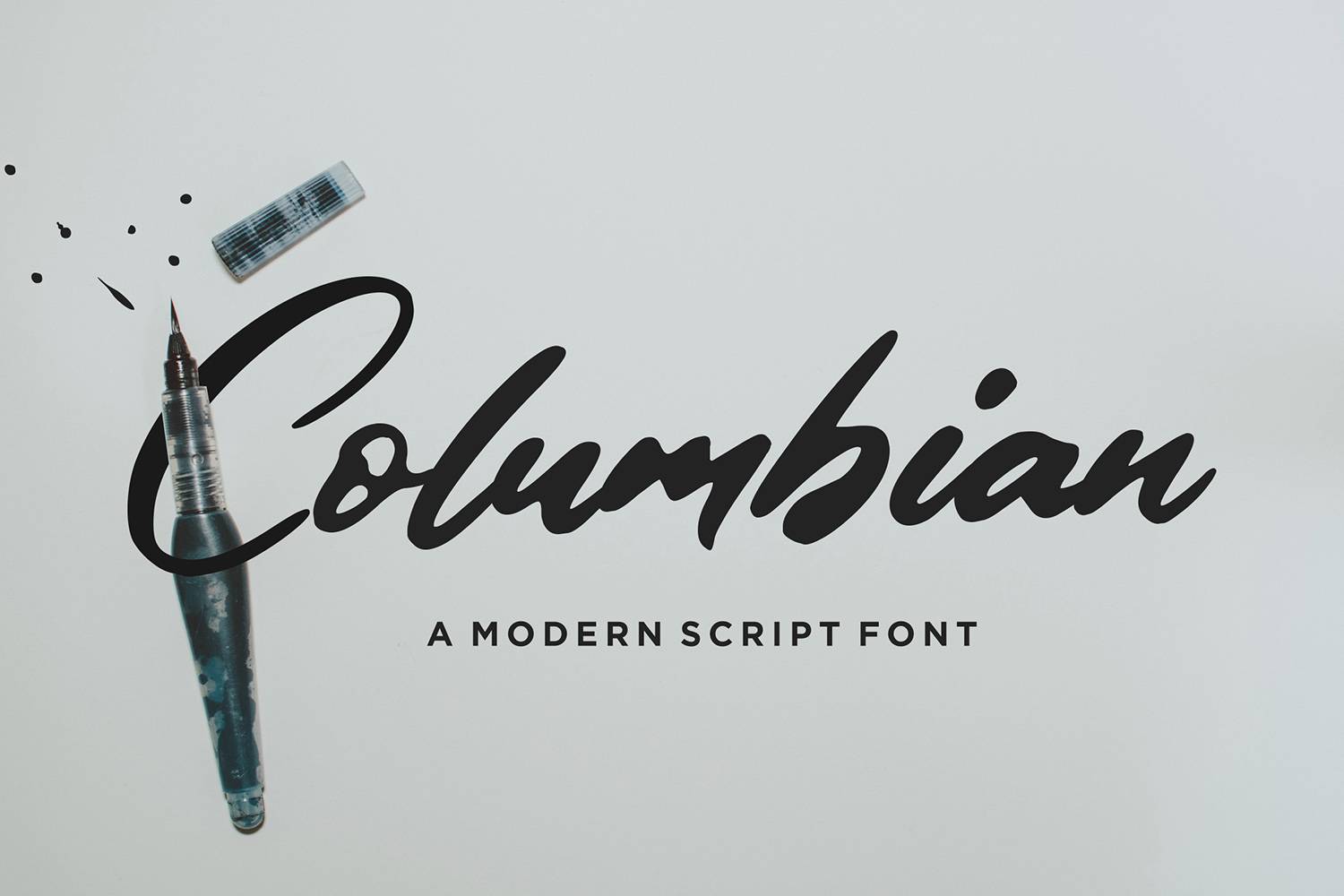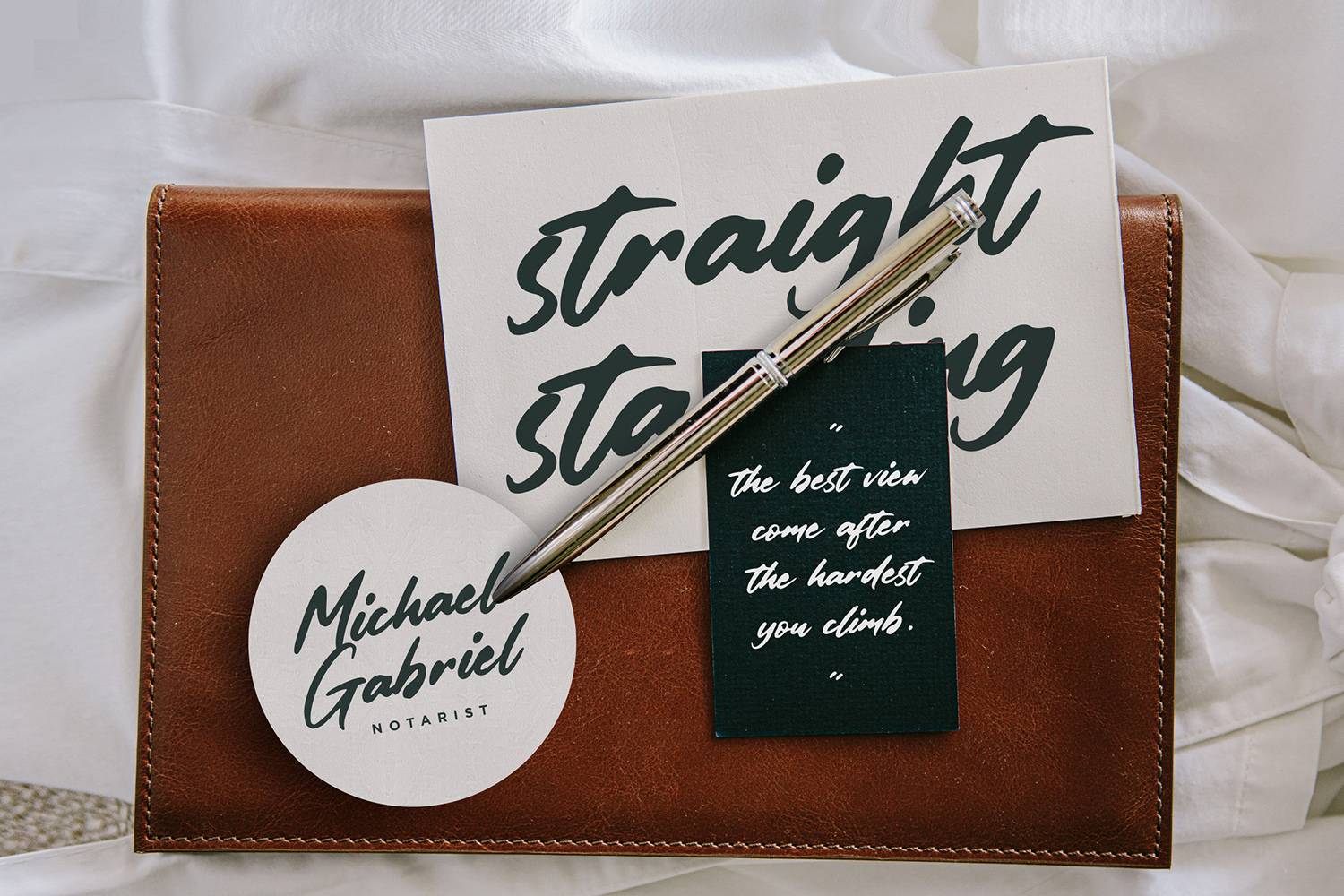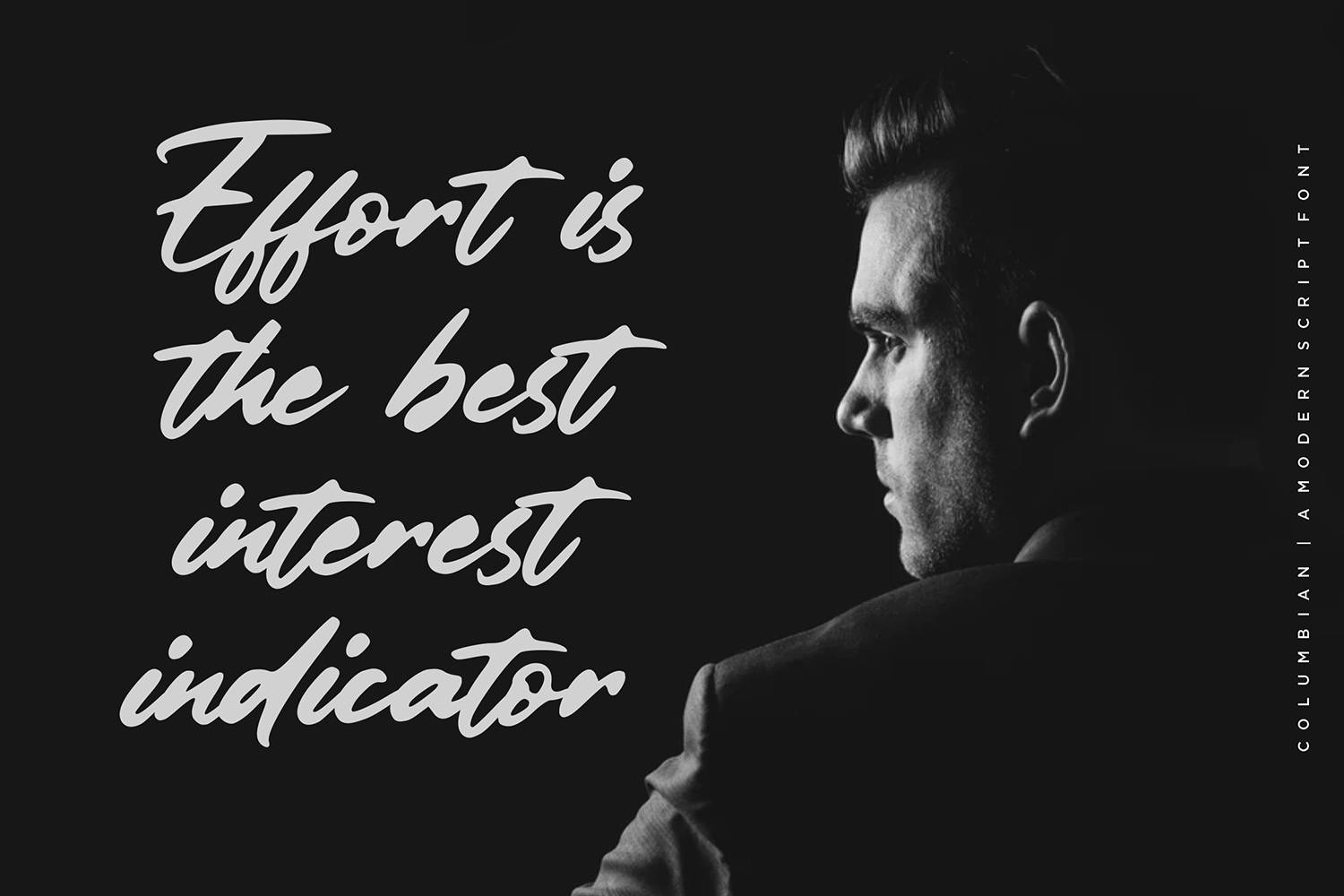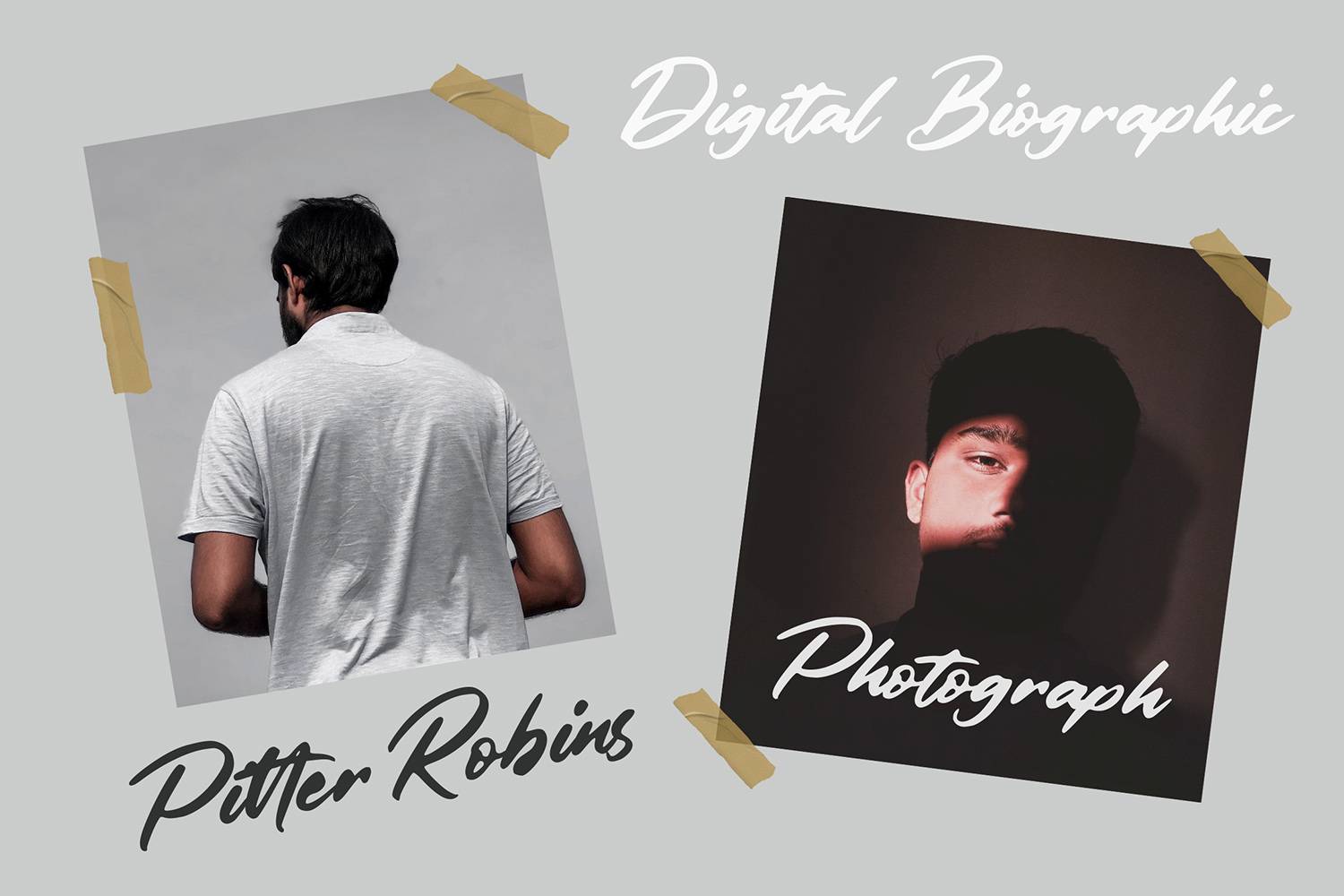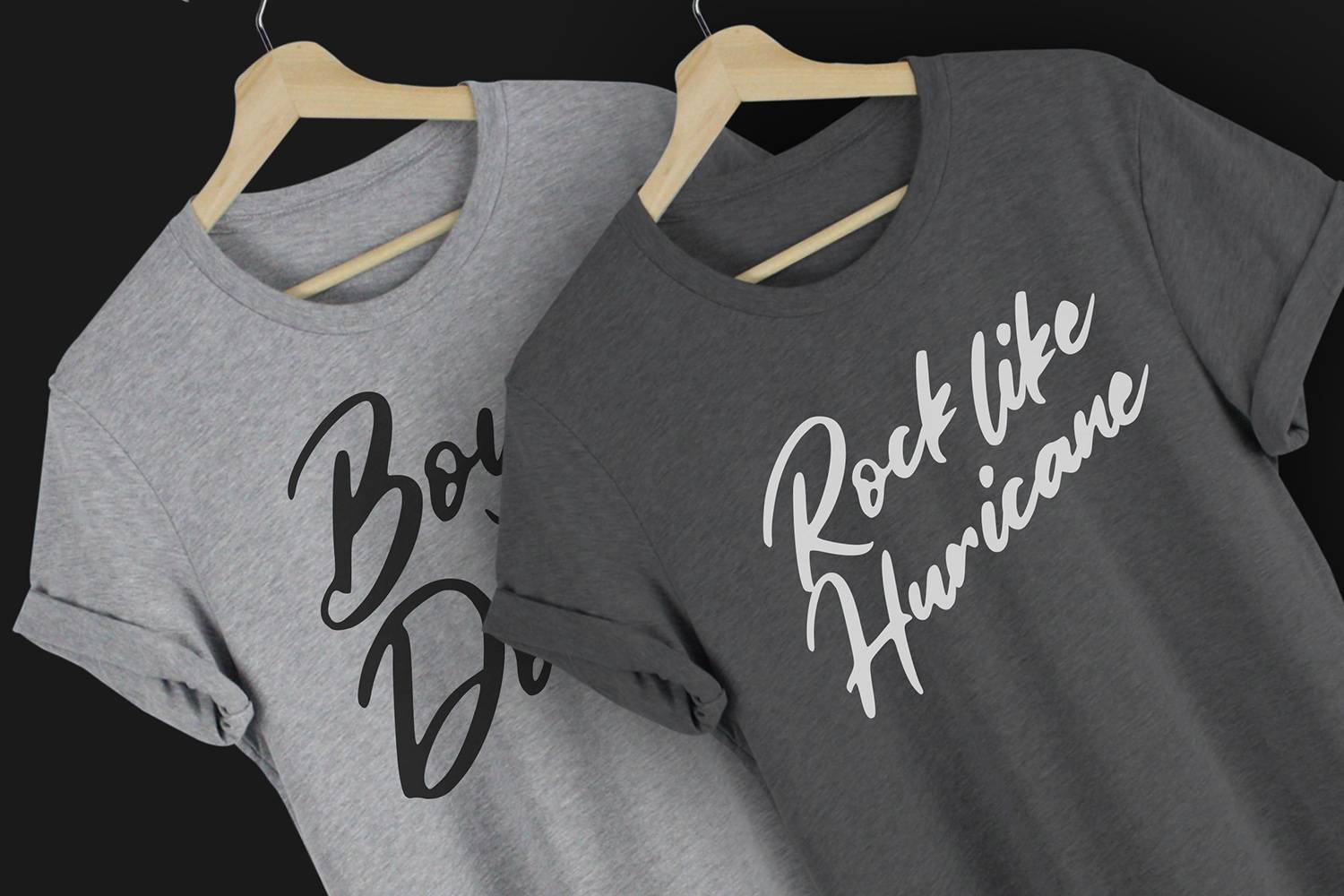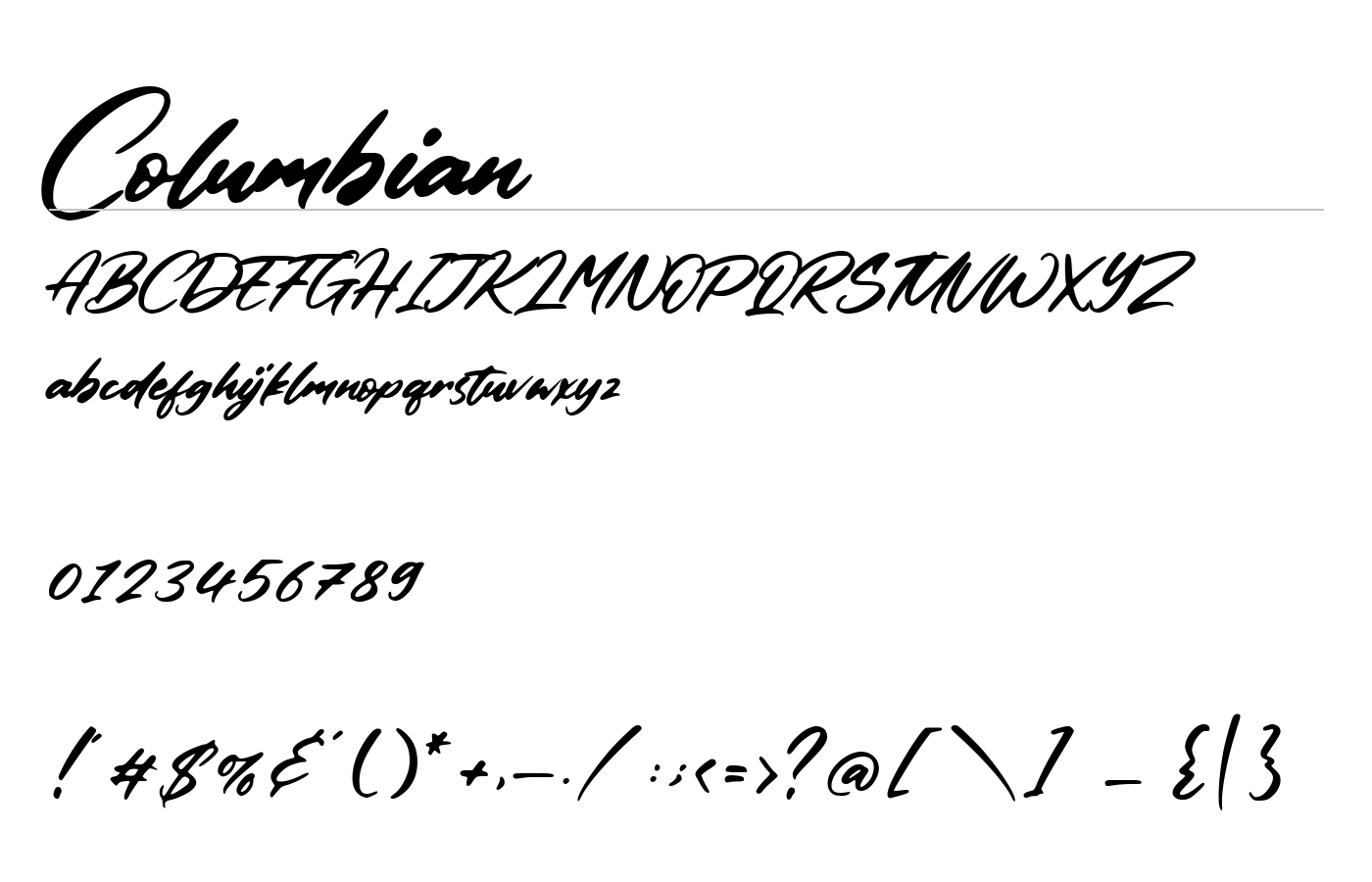
Columbian is a lively and elegant script font that combines fluid, handwritten strokes with a moderate contrast, giving it a dynamic yet approachable feel. Its slightly condensed letterforms and unique character shapes make it perfect for branding, invitations, and creative projects where a stylish, personal touch is desired. This font works well in contexts that need a sophisticated, artistic vibe without losing readability.
Columbian Font
About Columbian Font